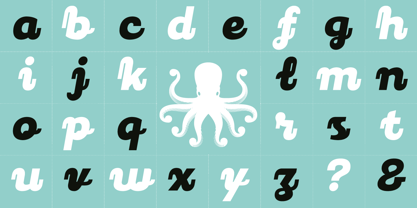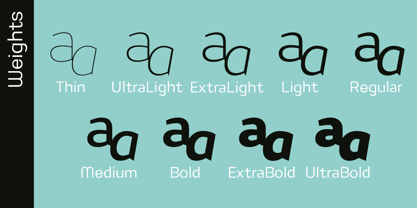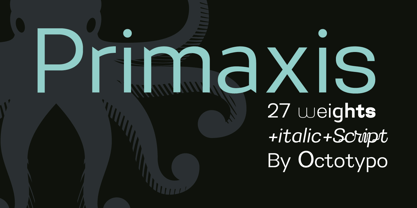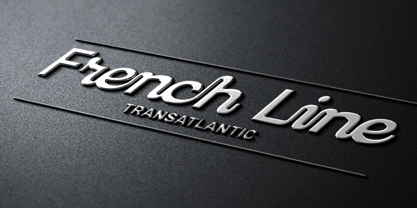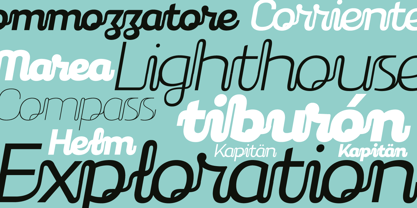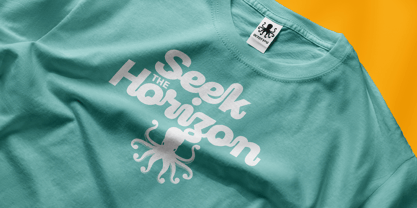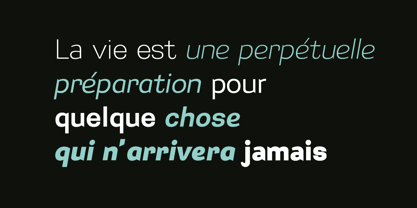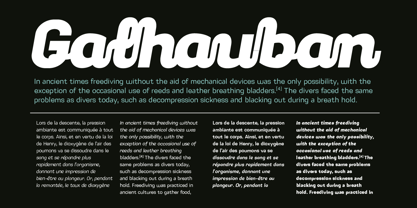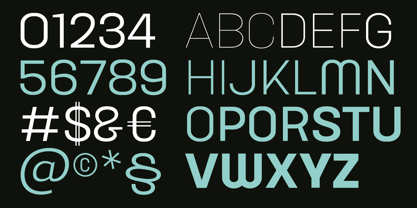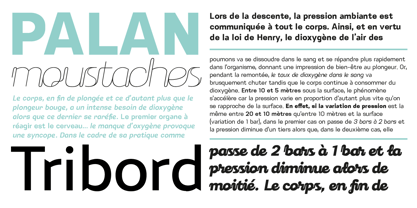
Primaxis
by Octotypo
The Primaxis Font Family was designed by Julien Janiszewski and published by Octotypo. Primaxis contains 18 styles and family package options. More about this family
Primaxis derives its name from its foundational structure — a fundamental geometry that embodies the essence of the type family. Built on a rational skeleton, it showcases an elementary architecture, complemented by smooth curves and open counters that significantly enhance readability and visual rhythm. Designed as an expressive and versatile type family, Primaxis unfolds in two complementary styles: Roman, Italic, making it ideal for headlines, signatures, and logotypes. By merging geometric structure with a sense of motion and warmth, Primaxis seamlessly integrates into editorial, branding, and institutional contexts, providing a typeface that feels both contemporary and humanly crafted. Check out also Primaxis Script the cursive addition of the Primaxis Family.
Designers: Julien Janiszewski
Current Foundry: Octotypo
OCTOTYPO is an independent digital type studio based in France. It raised in 2020 from the rebranding of La-Laiterie, a foundry with over two decades of heritage. Specializing in bespoke typographic systems, OCTOTYPO develops custom typefaces tailored to a wide range of industries, from fashion and branding to editorial and technology. Each type design is crafted with a deep respect for artistic tradition while embracing the latest innovations in typography. The studio’s philosophy revolves around the idea that typography is more than just letters—it is a form of storytelling. Every typeface is designed to balance aesthetic beauty with functional clarity, ensuring a seamless reading experience. With meticulously engineered OpenType features, OCTOTYPO ensures versatility and adaptability, making its typefaces suitable for both print and digital applications. Whether for corporate identities or creative projects, OCTOTYPO delivers unique, high-quality typographic solutions.